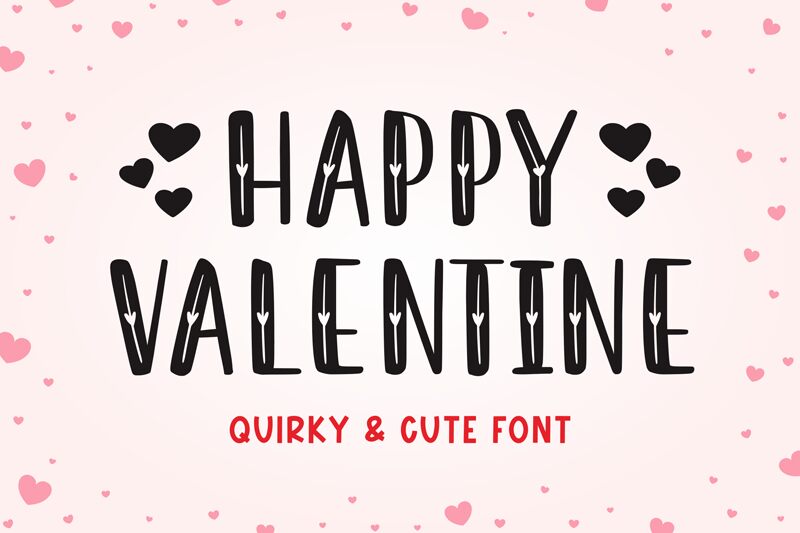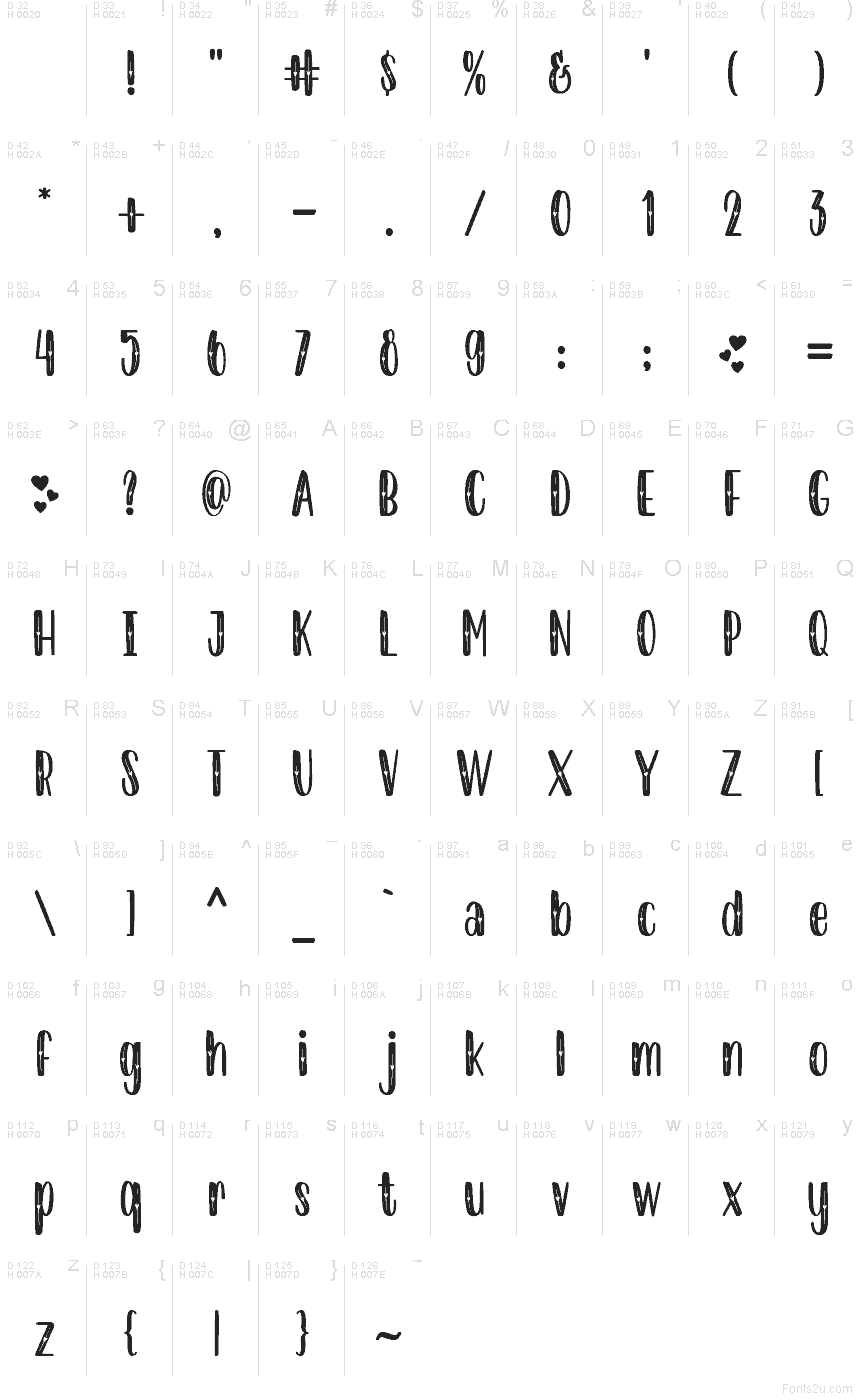
Happy Valentine
Happy Valentine font by Mozatype is a free Valentine decorative font with tall, hand-drawn letters filled with tiny heart cutouts. The strokes feel inky and slightly rough around the edges, like they were painted with a brush on textured paper, giving your text a cozy, homemade-card charm rather than a slick corporate look. Its narrow proportions help longer words stay compact, while the repeating heart details instantly signal romance, affection, and celebration.
Using Happy Valentine, your love-themed designs get that ready-made scrapbook warmth for greeting cards, wedding invitations, party favors, classroom printables, gift tags, and social media posts. This free font shines on big, playful headlines, then pairs nicely with a simple sans serif for body copy so the hearts stay the hero. Keep it at larger sizes to let those inner heart shapes read clearly and do the emotional storytelling for you.